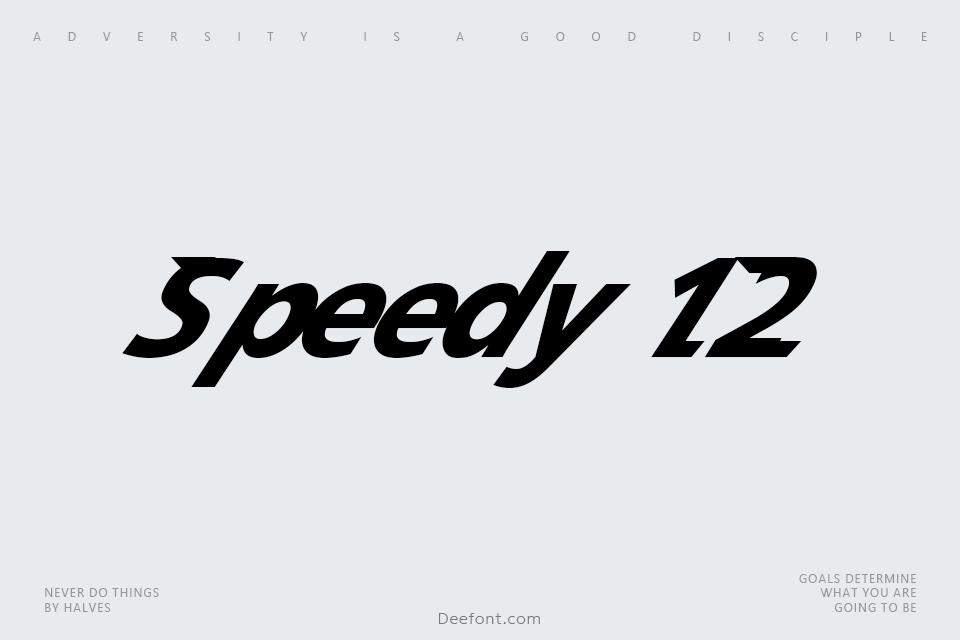
Speedy 12 Font
Speedy 12 is a cutting-edge techno and various font designed by Omega Font Labs that brings digital energy to your creative projects. With its modern geometric shapes and distinctive character set of 154 glyphs, this fast-paced typeface delivers contemporary visual impact perfect for tech-forward designs, digital interfaces, and modern branding. The font's sleek lines and distinctive styling make it an excellent choice for projects requiring bold visual statements and contemporary typography that stands out from the crowd.